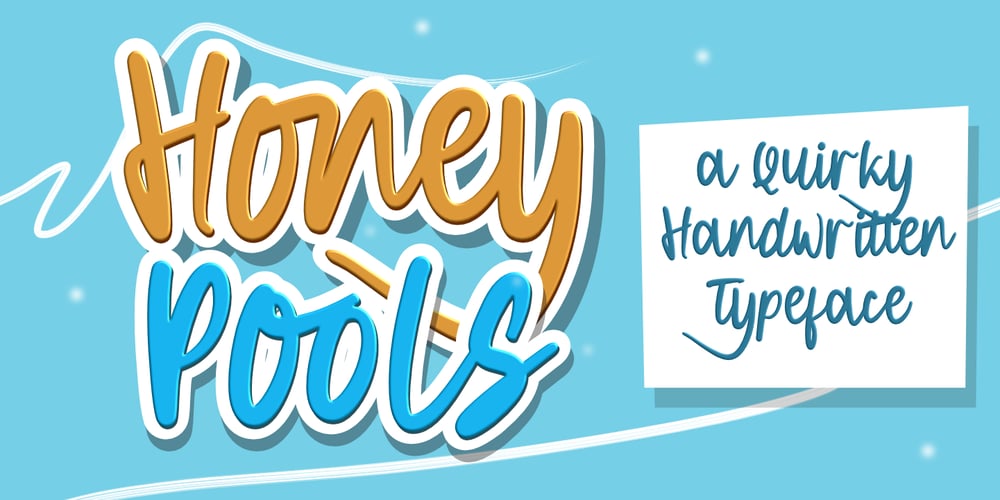
Honey Pools Font Family was designed by Toni Dzulham and published by Dumadi. Honey Pools contains 1 styles and family package options. Honey Pools is a handwritten Quirky font created with application brush strokes. This font is designed for casual designs but will bring out your designs as stunning as possible. It includes all lowercase and uppercase characters, numbers and symbols, multilingual support, and Ligature.Honey Pools is perfect for celebratory designs like st Patrick’s Day poster design, Spring season Design, Ester Design, valentine design fonts, social media design fonts, content design, and other designs.Compatible with design studios such as Photoshop, Affinity Design, Adobe Illustrator, or Silhouette. That makes it great for creative projects.Thank you, Toni Dzulham – Dumadistyle